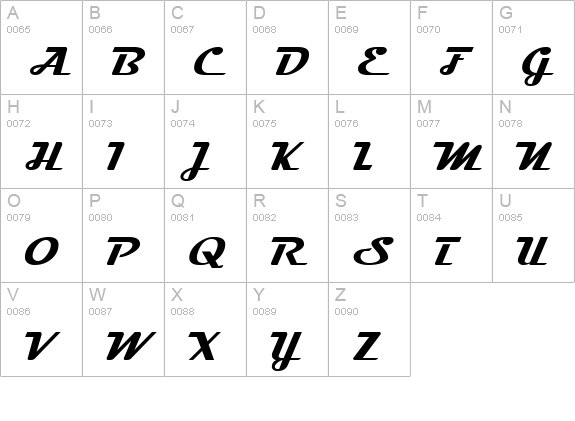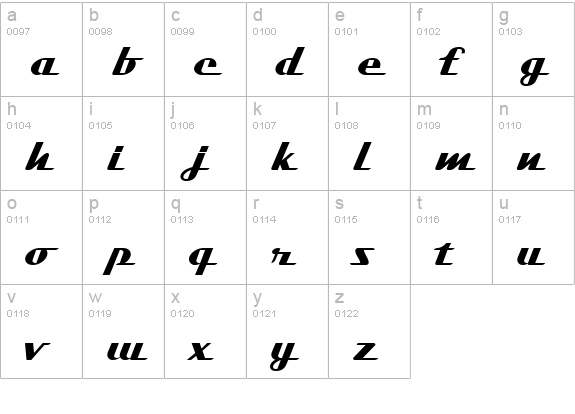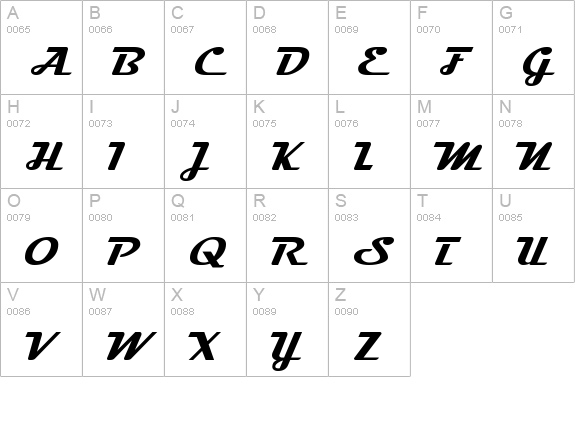
Fairlane Font Details
Fairlane font is a modern and elegant typeface that combines sleek lines with a touch of sophistication. Its clean and versatile design makes it suitable for a wide range of projects, from branding to editorial design. The Fairlane font is characterized by its balanced proportions and subtle geometric shapes, giving it a contemporary and timeless appeal. The best part about Fairlane font is that it is completely free to download at FontsMarket.com. This means you can easily access this high-quality typeface without any cost, making it a valuable addition to your font collection. Whether you're working on a professional project or simply looking to enhance your creative designs, Fairlane font offers a perfect blend of style and functionality. Download it today and elevate your typography game with this stunning font.